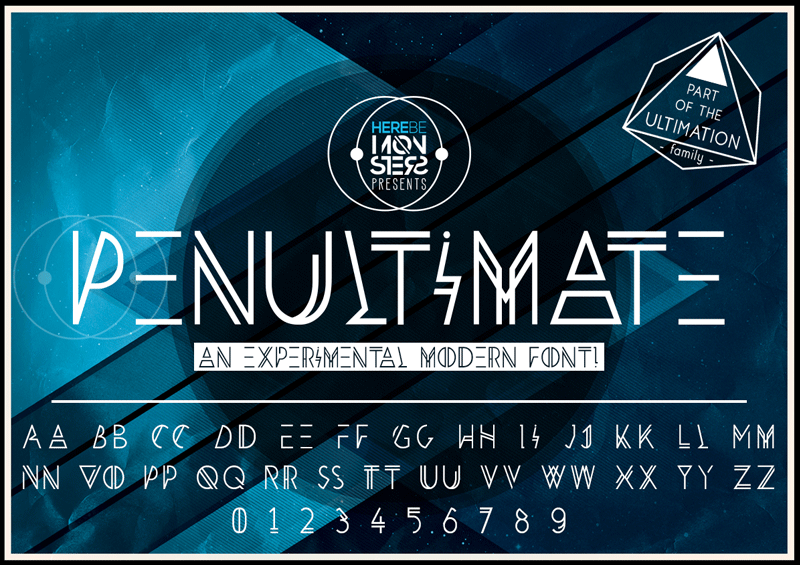
Font name: | HBM Penultimate |
Author: | Here Be Monsters |
Note by Here Be Monsters | |
Penultimate is an experimental, modern sans serif, display typeface built on HBM Ultimation font family. With atypical character alternatives and clean cut edges as found with HBM Razed, Penultimate is a perfect typeface for posters, logos, titles and more! FOR PERSONAL USE ONLY. For licensing, information & to see more great fonts visit: http://www.monsterswithin.com - Big Minion |